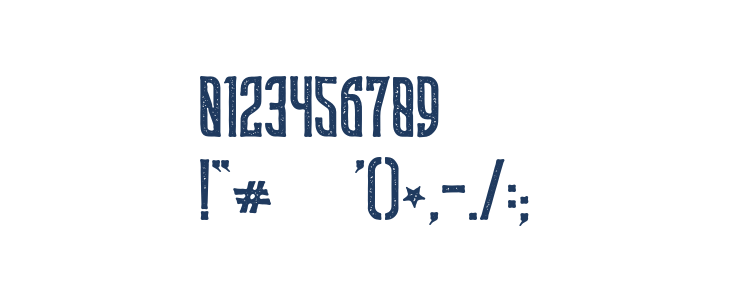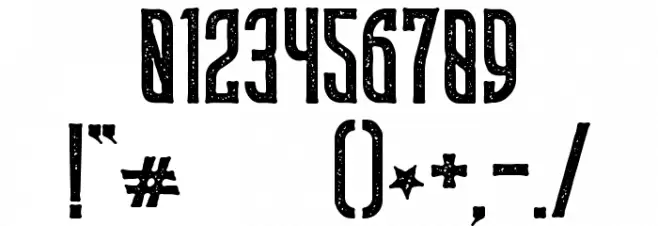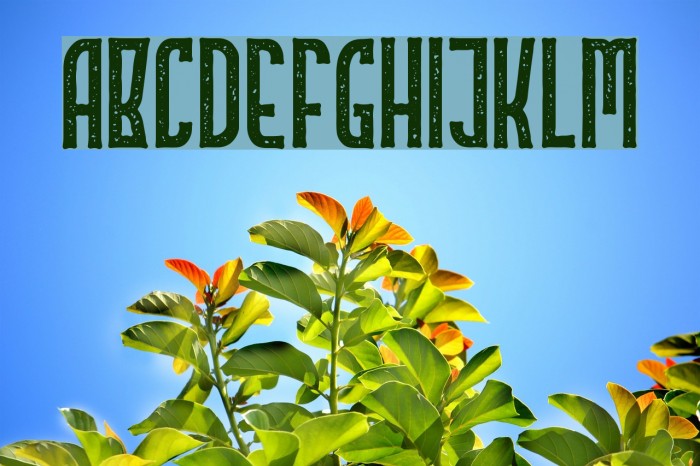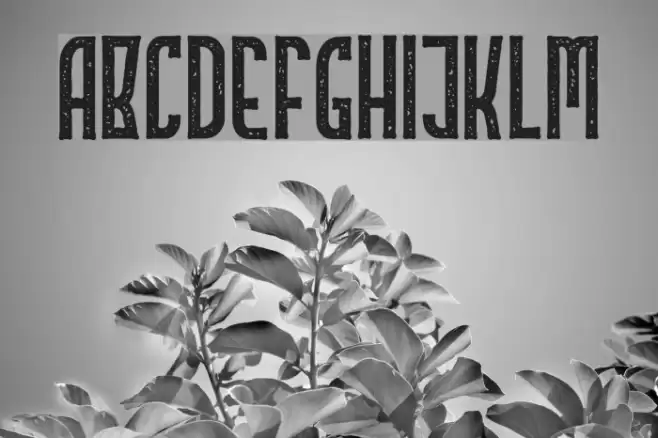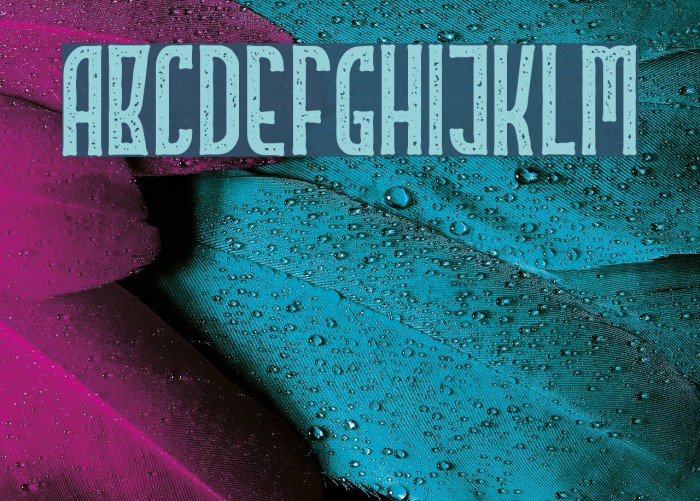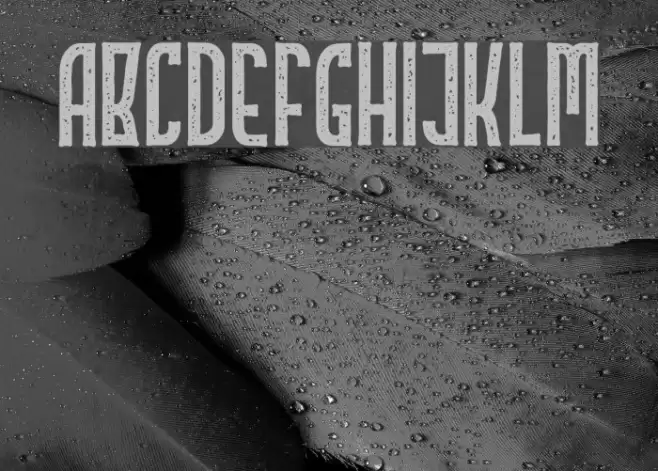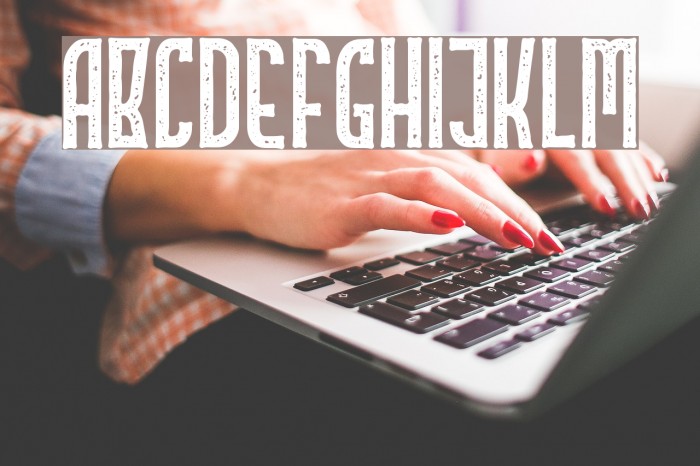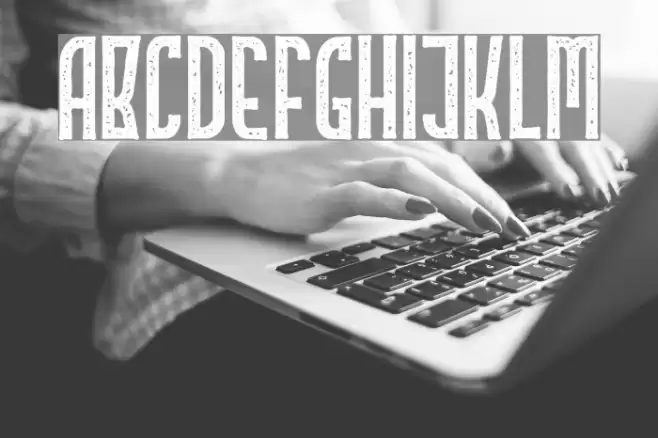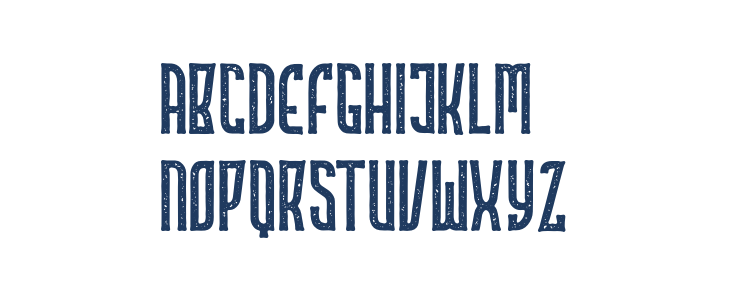
Highstories4 Font
Highstories4 Description
This font features a bold and textured design, reminiscent of vintage signage with a modern twist. The characters are tall and narrow, with a slightly condensed width, giving them a strong and impactful presence. The texture within each letter adds a rustic and handcrafted feel, making it ideal for projects that require a touch of authenticity and character. The uppercase and lowercase letters maintain a consistent style, while the numbers and special characters complement the overall aesthetic. This font is perfect for creating eye-catching headlines, posters, and branding materials that need to stand out.
| Proposed Projects | Ideal for vintage-themed posters, branding, and signage. |